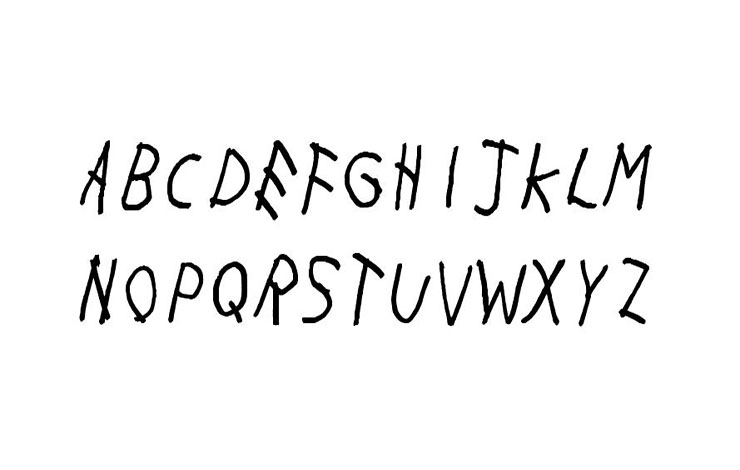
If You’re Reading This Font! It’s Too Late If You’re Reading This is a mixtape by Canadian rapper Drake. It was released on February 13, 2015, via the iTunes Store by Cash Money Records.
The mixtape contains 17 tracks and includes collaborations with Lil Wayne and Travi$ Scott. It was initially promoted as a surprise release and debuted at number one on the US Billboard 200 chart.
It received positive reviews for its dark and introspective themes, cementing Drake’s place as one of the biggest names in hip-hop.
The used in this logo is named With My Woes Font which is a script handwritten font designed by OJ Customs. It is available in one weight.
Font Name:If You are Reading This Font Family
Style:Handwritten, Display, Logo
Font Designer:OJ Customs
The font features an irregular style, resembling the typography used on the mixtape cover. It has been used for a variety of purposes, including album covers, social media graphics, and merchandise design.